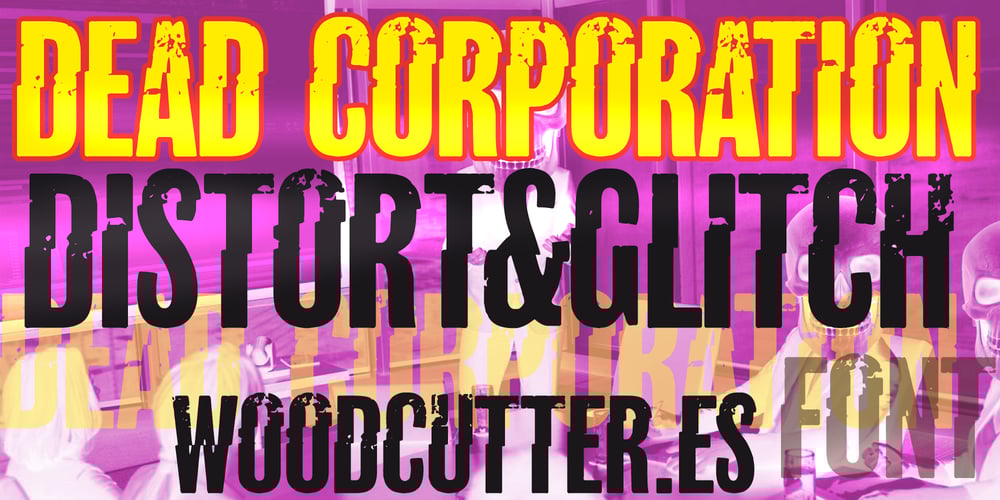
Dead Corporation
Dead Corporation font
Dead Corporation Font Family was designed by Jordi Manero and published by Woodcutter. Dead Corporation contains 1 styles and family package options. “Dead Corporation” is a distorted and shattered typeface, as if deformed by technological interference. Its letters, appearing to have undergone a digital alteration, feature irregular lines and disfigured contours, creating a chaotic and unsettling aesthetic. Ideal for projects aiming to convey a sense of disruption, collapse, or post-apocalyptic themes. Perfect for titles on posters, book covers, and science fiction designs, “Dead Corporation” adds a unique atmosphere of decay and disorder.